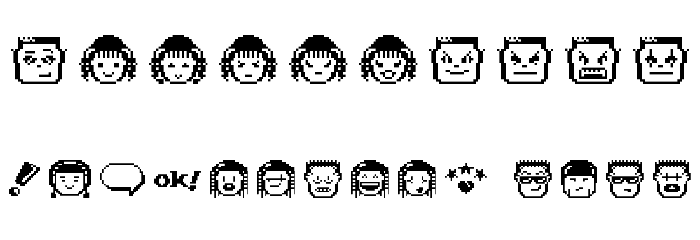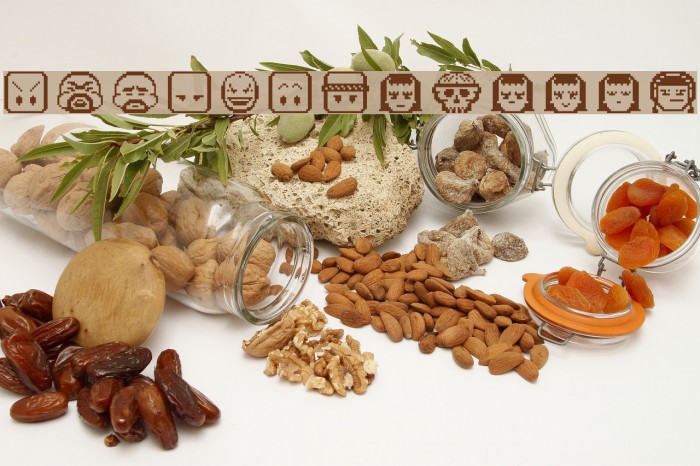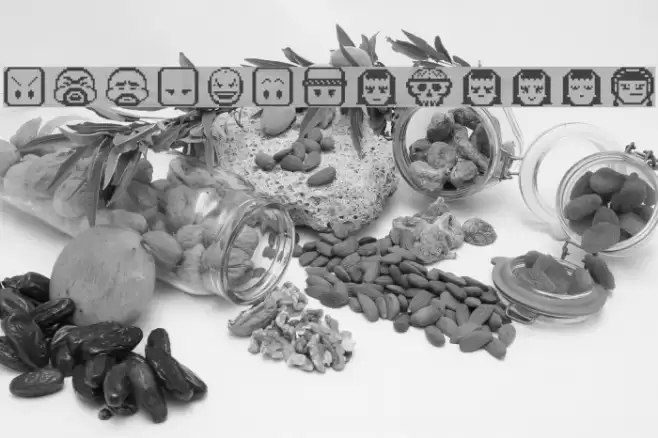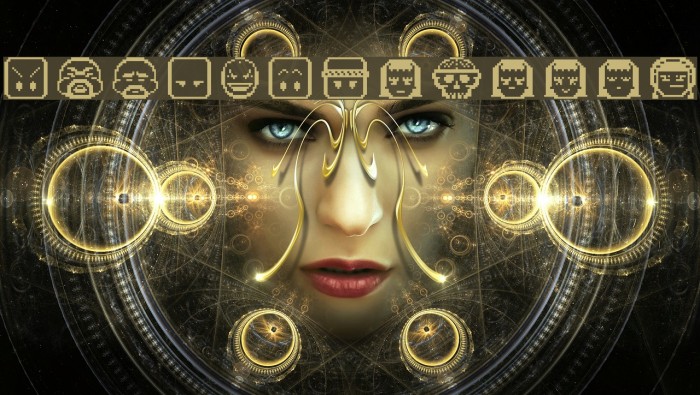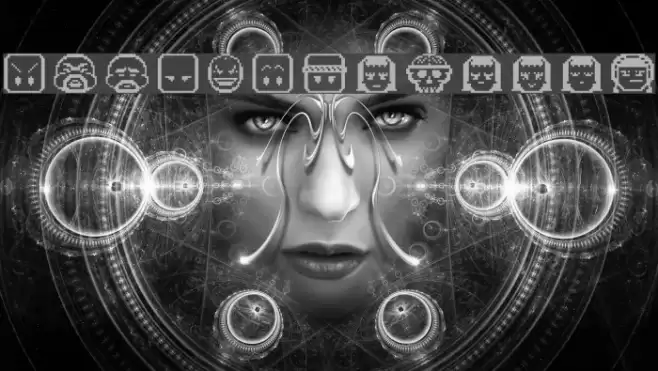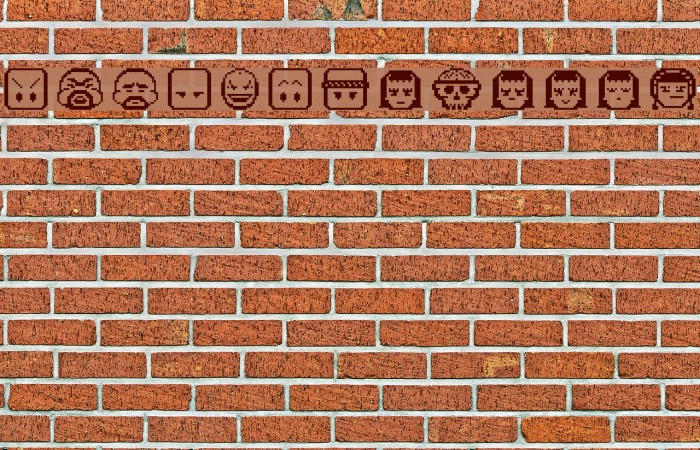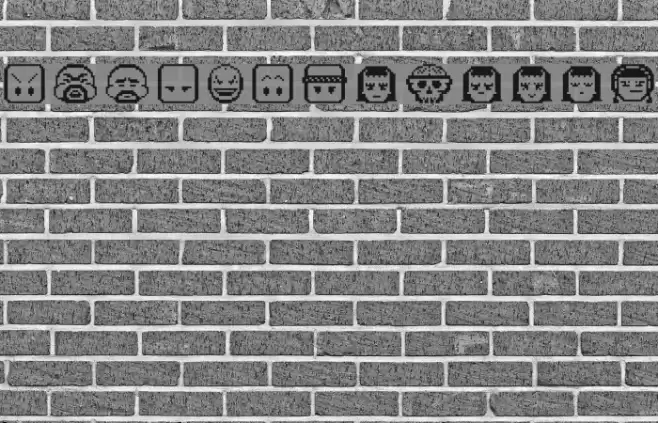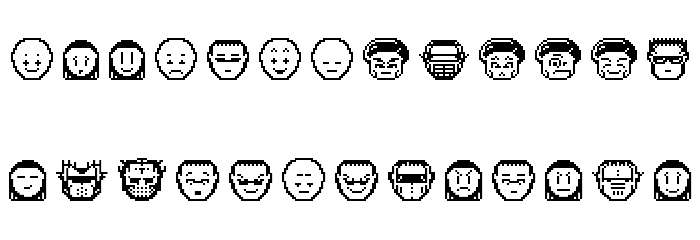
V5 Pixelpals Font
V5 Pixelpals Description
A pixel-based decorative font composed of various expressive faces and symbols, each character rendered in a minimal, monochrome, grid-like style reminiscent of retro video game graphics.
Pixel art font featuring expressive faces and symbols from Pixel fonts.
- Proposed Projects: Video game UI, retro-themed posters, playful branding, digital stickers, children's media.
- Overall Style: Playful, Retro, Decorative
- Use Case: Icons, Emojis, Display text, Game interfaces